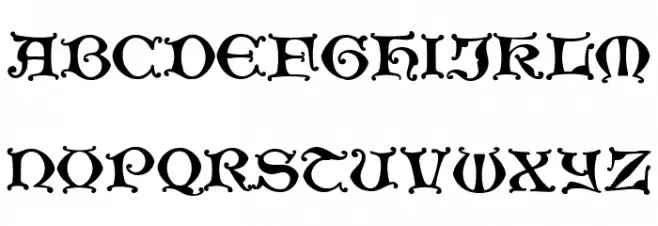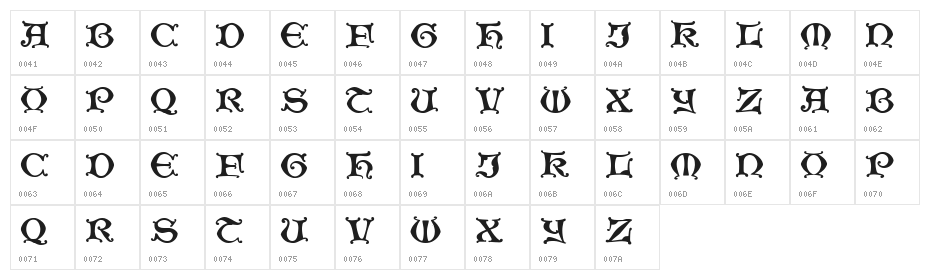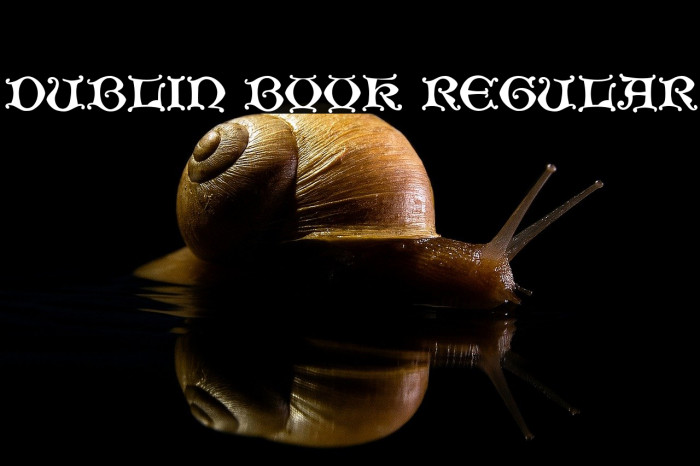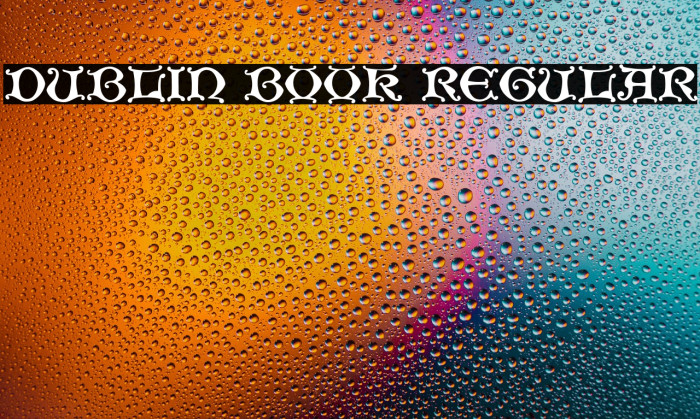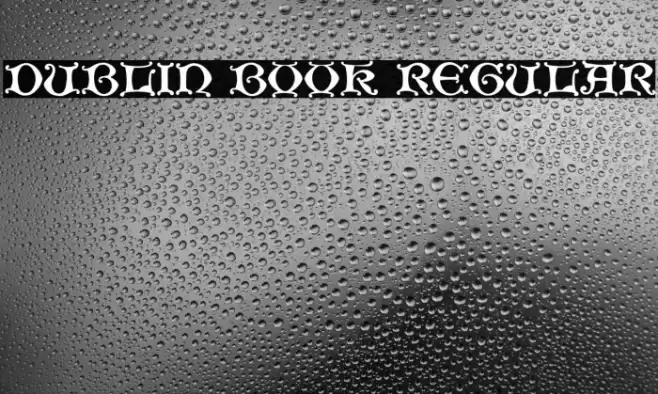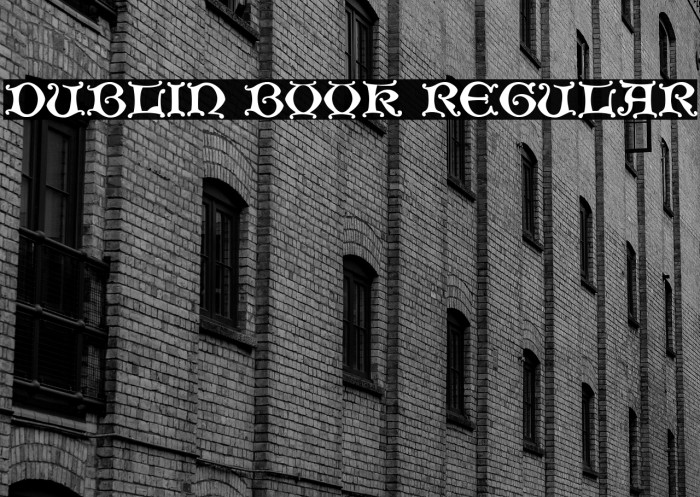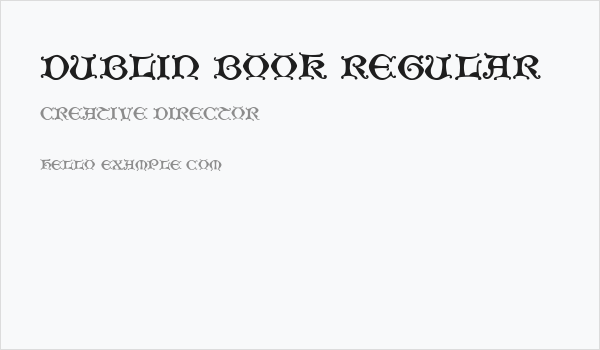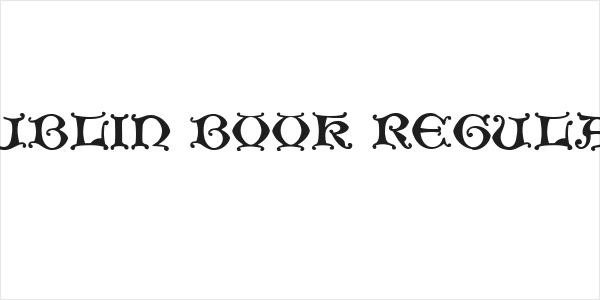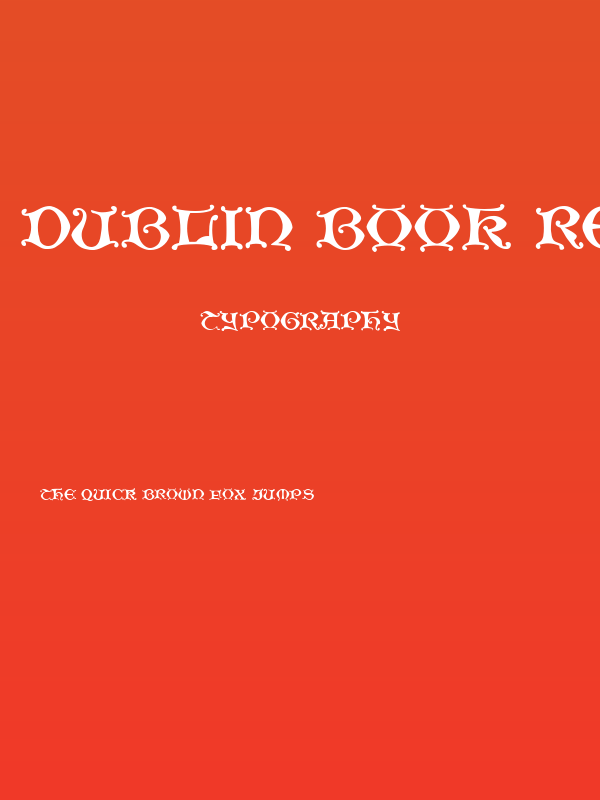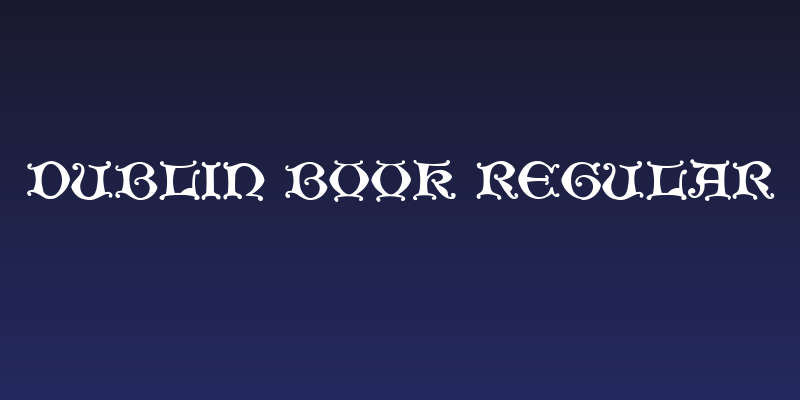
Dublin Book Regular Font
Dublin Book Regular Description
This font features a distinct and elaborate design, characterized by ornate and decorative elements reminiscent of historical scripts. Each letter is crafted with intricate details, including flourishes and embellishments that give it a unique, artistic flair. The overall appearance is bold and striking, making it ideal for creating a strong visual impact. The uppercase letters are particularly elaborate, with curved and pointed elements that enhance their decorative appeal. The lowercase letters maintain a consistent style, ensuring a cohesive look across all text. This font is perfect for projects that require a touch of elegance and sophistication.